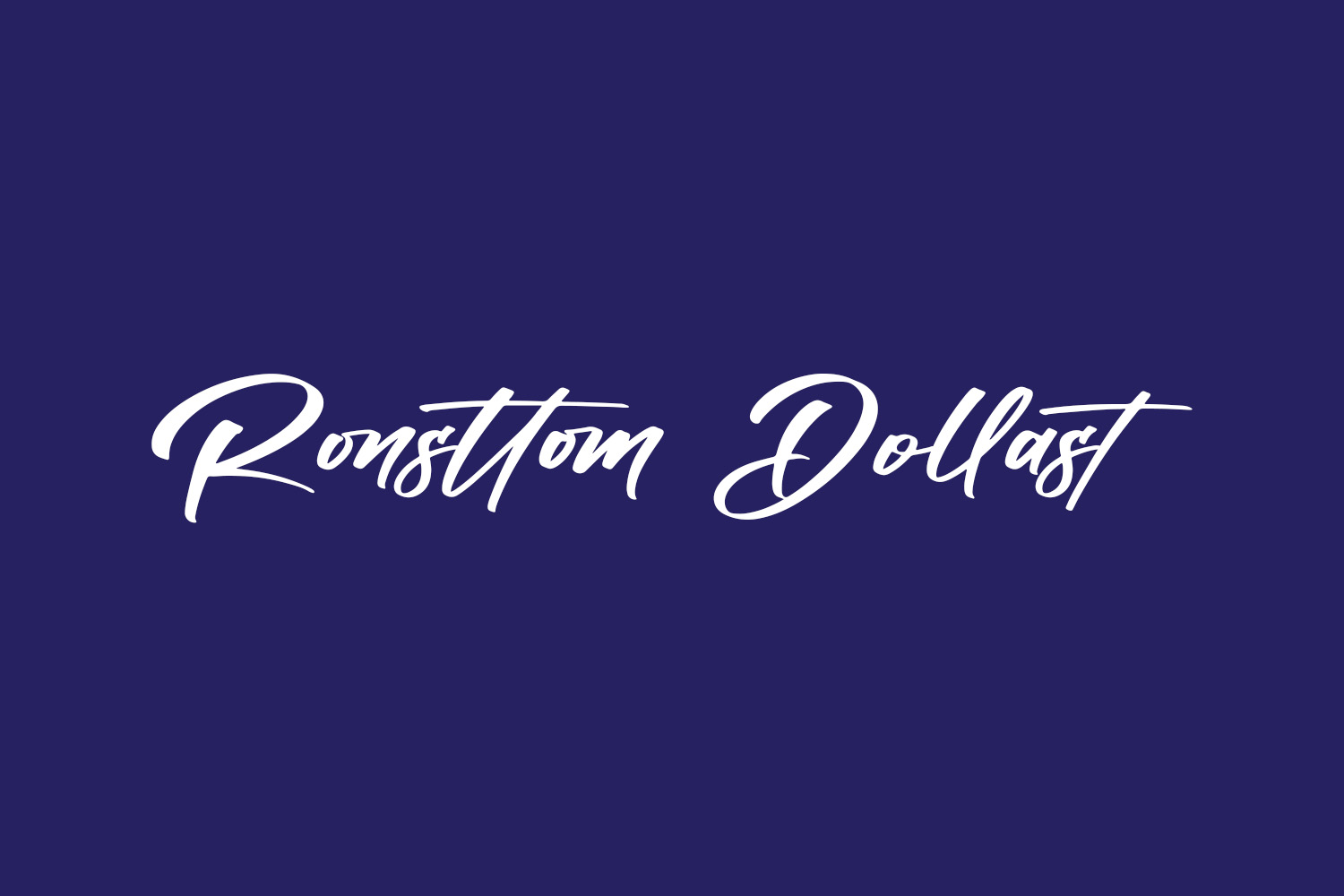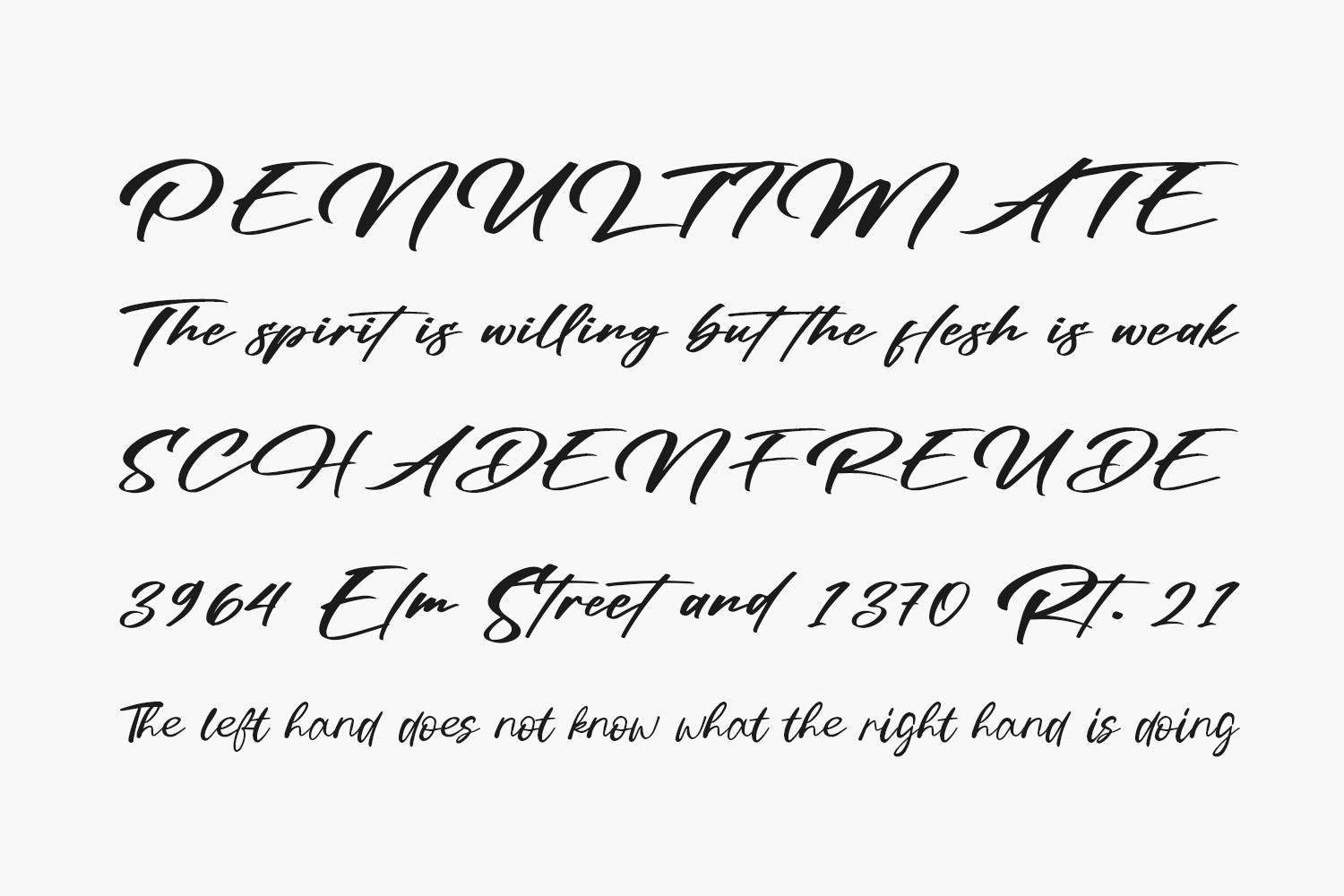
Ronsttom Dollast Free Font presents an exquisite and airy handwritten font featuring a distinct essence and striking influence. Incorporating it into your design projects will infuse a touch of opulence, elevating the overall aesthetic. Ronsttom Dollast Free Font is free for personal use only. Please purchase the full version for commercial use.